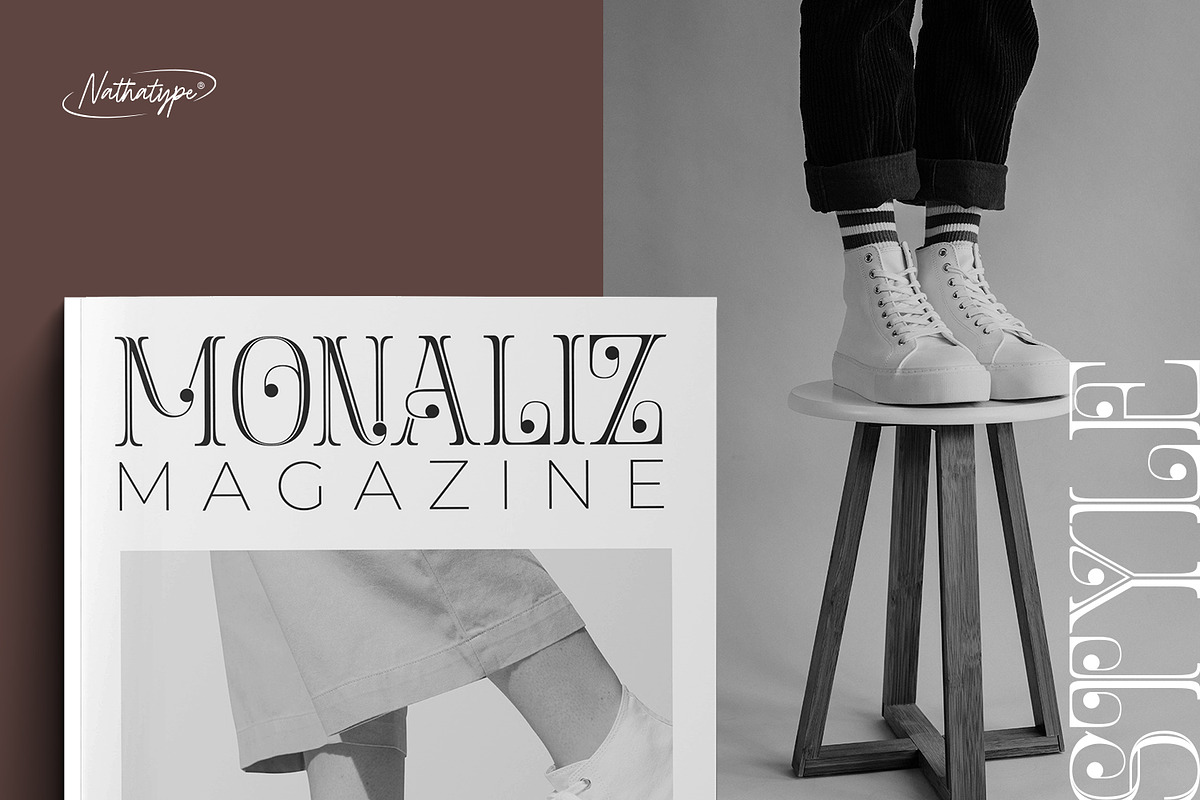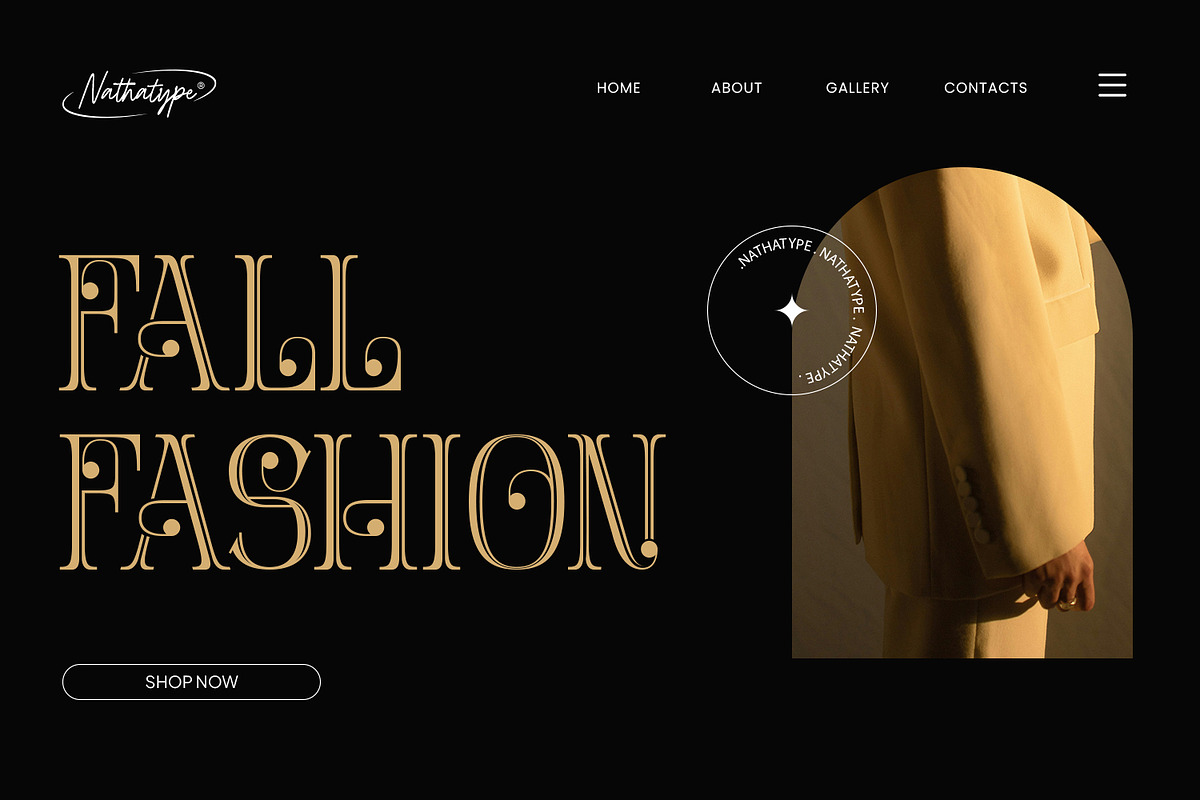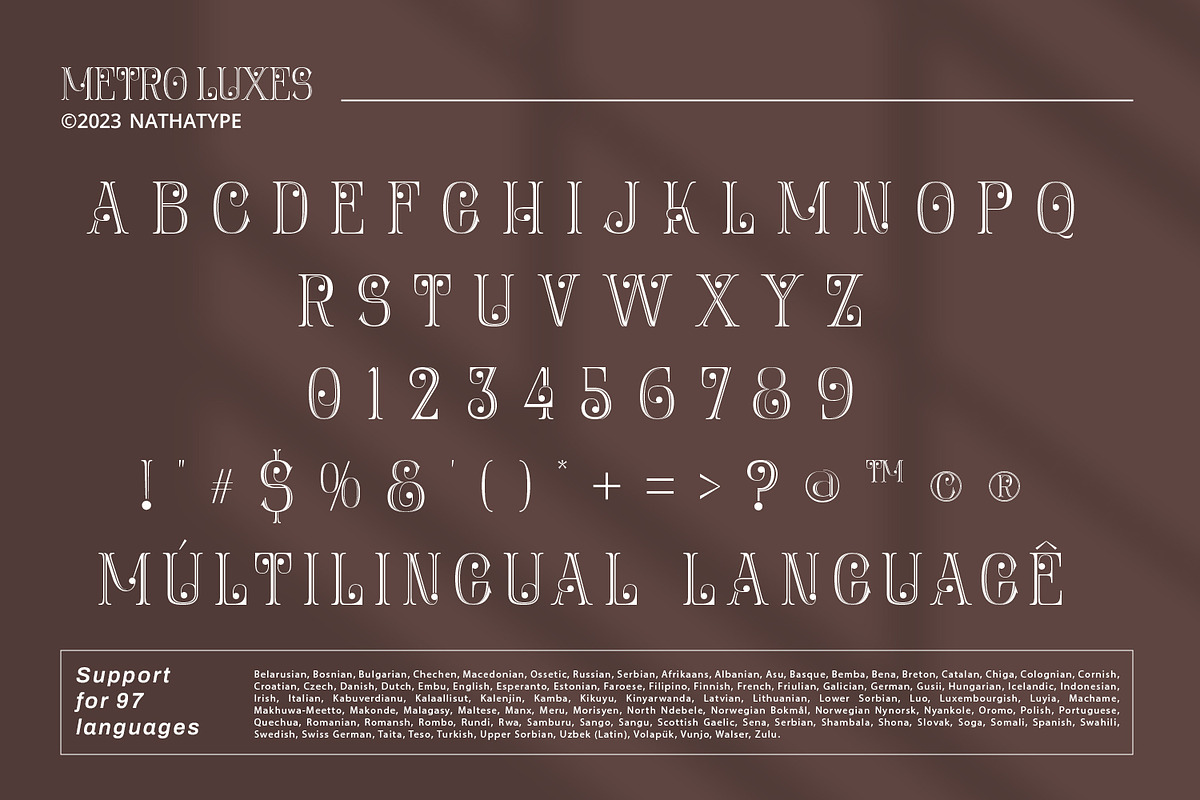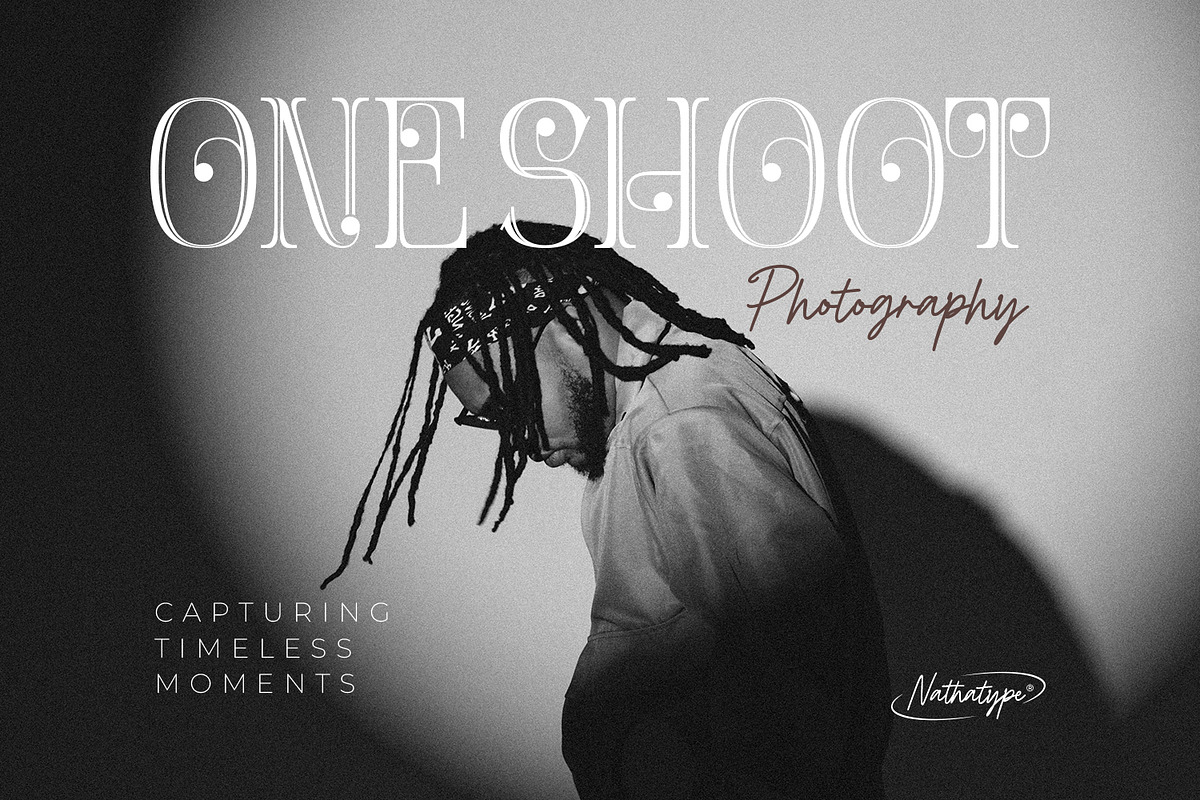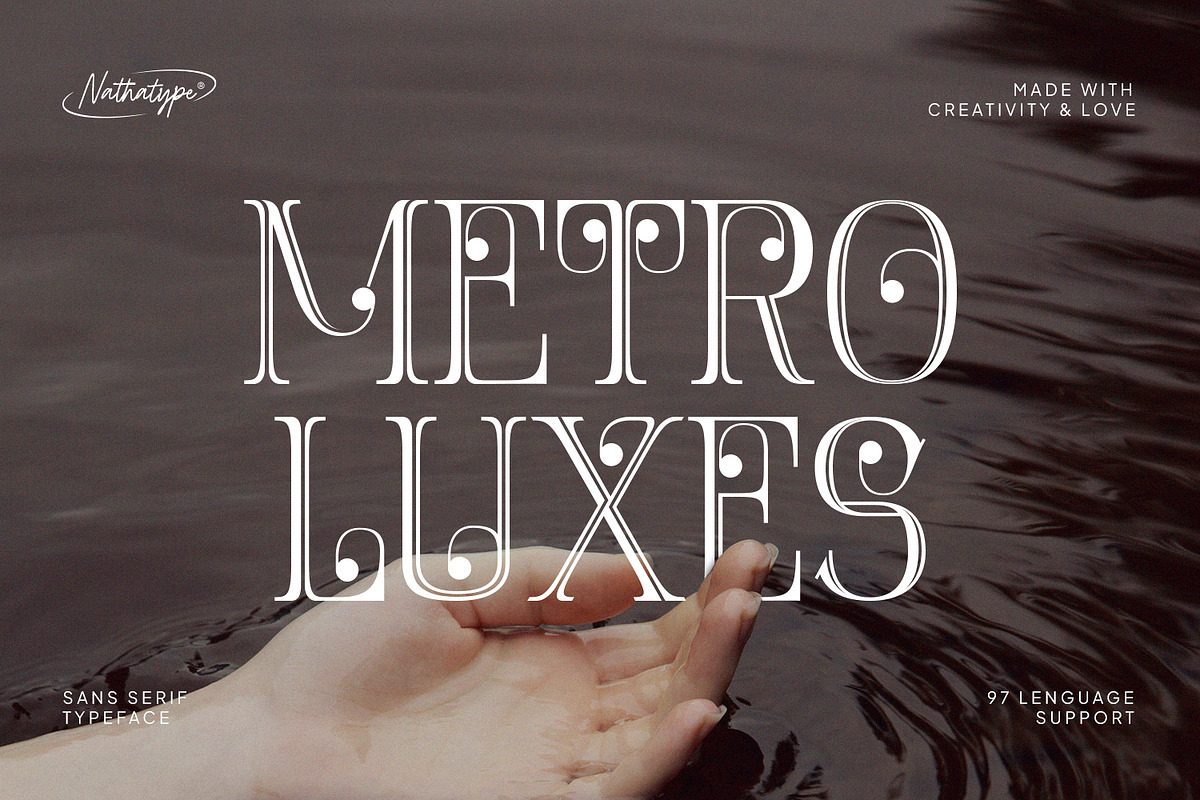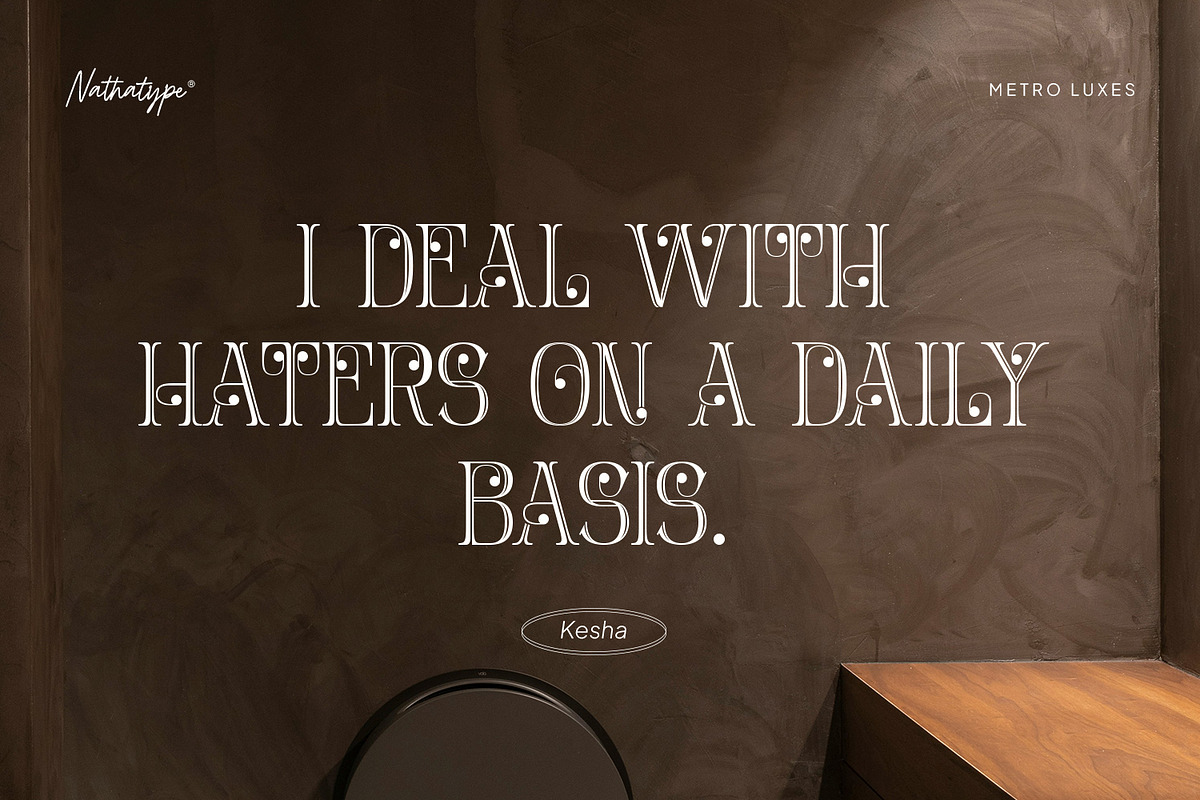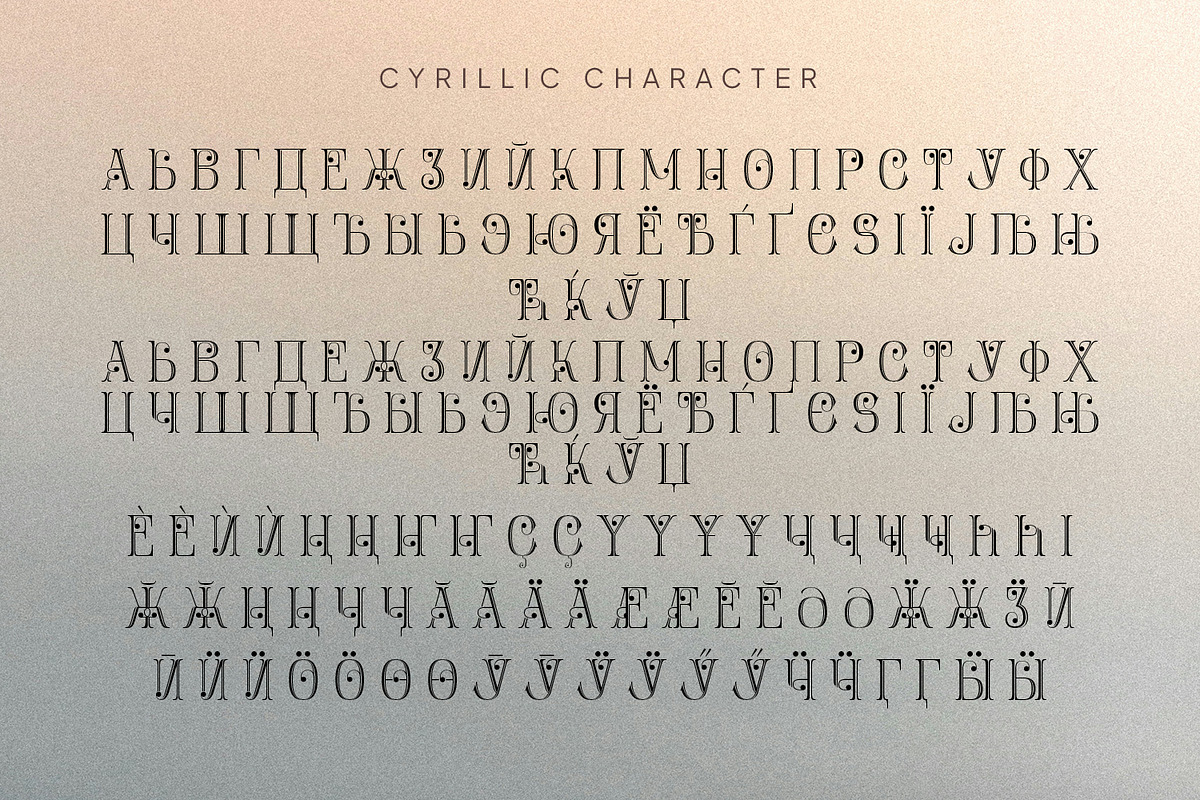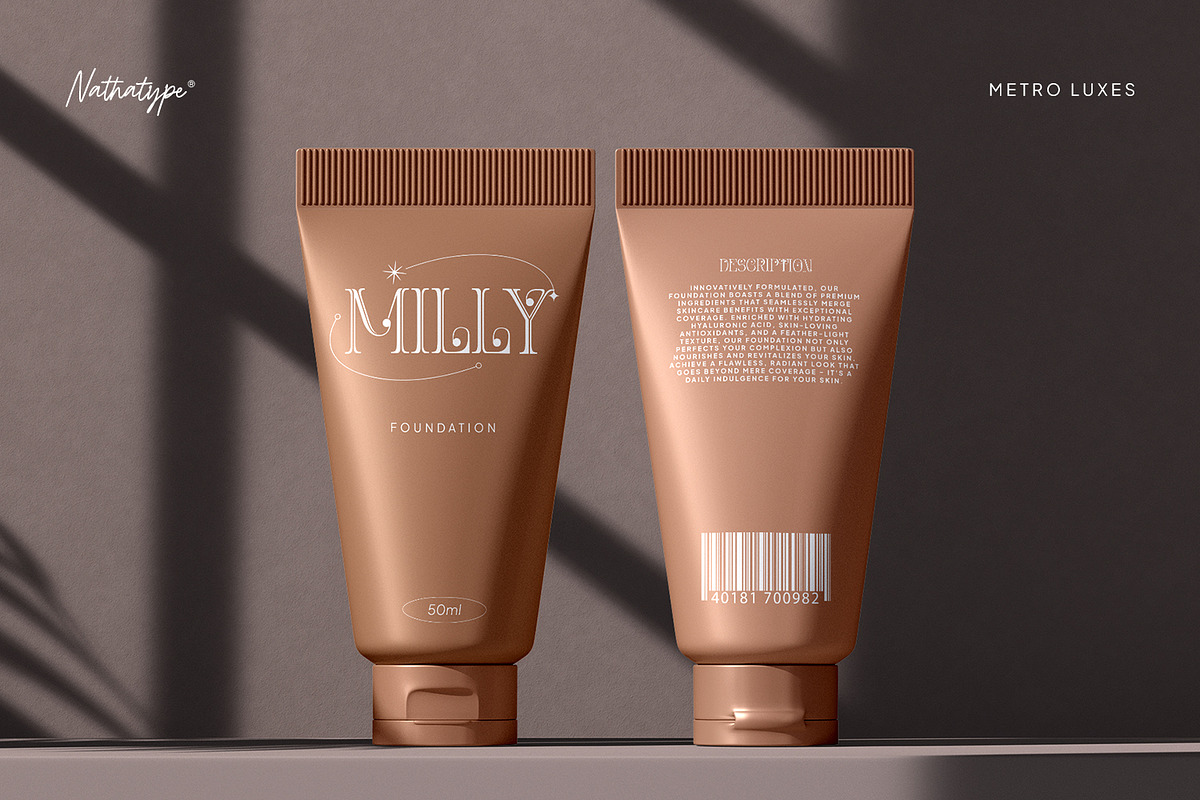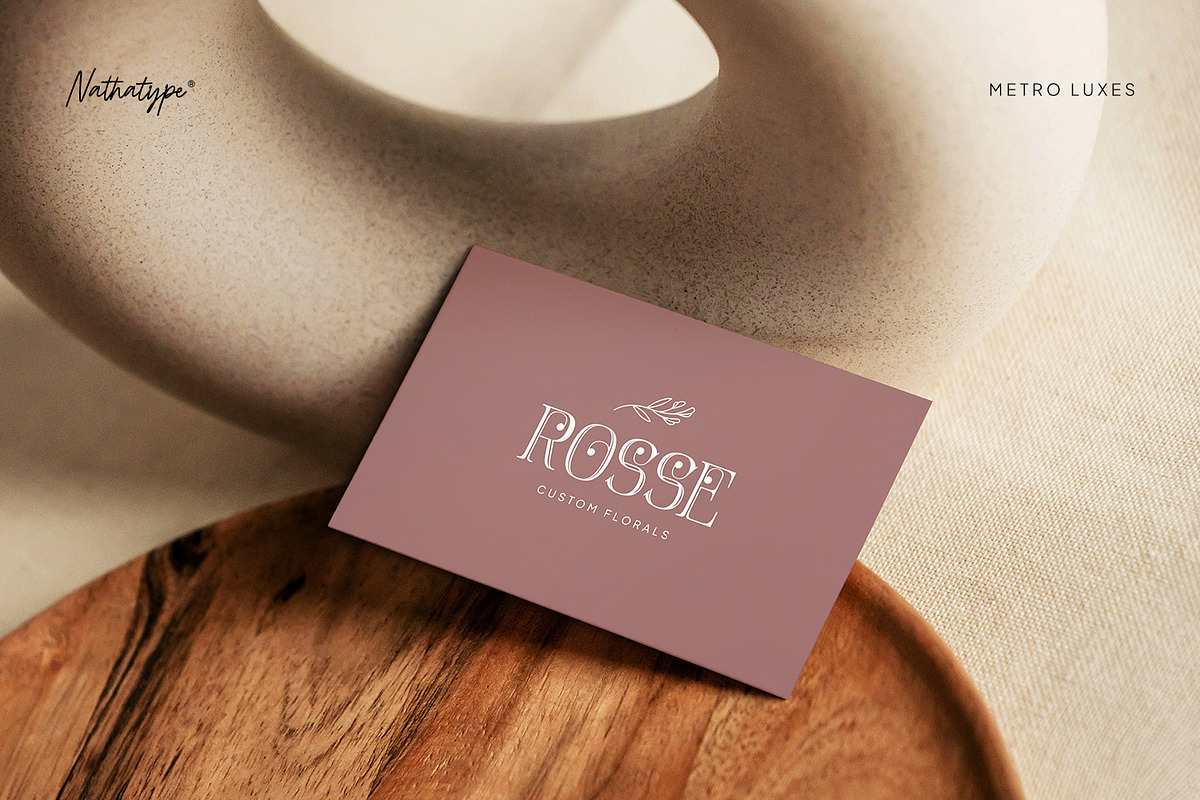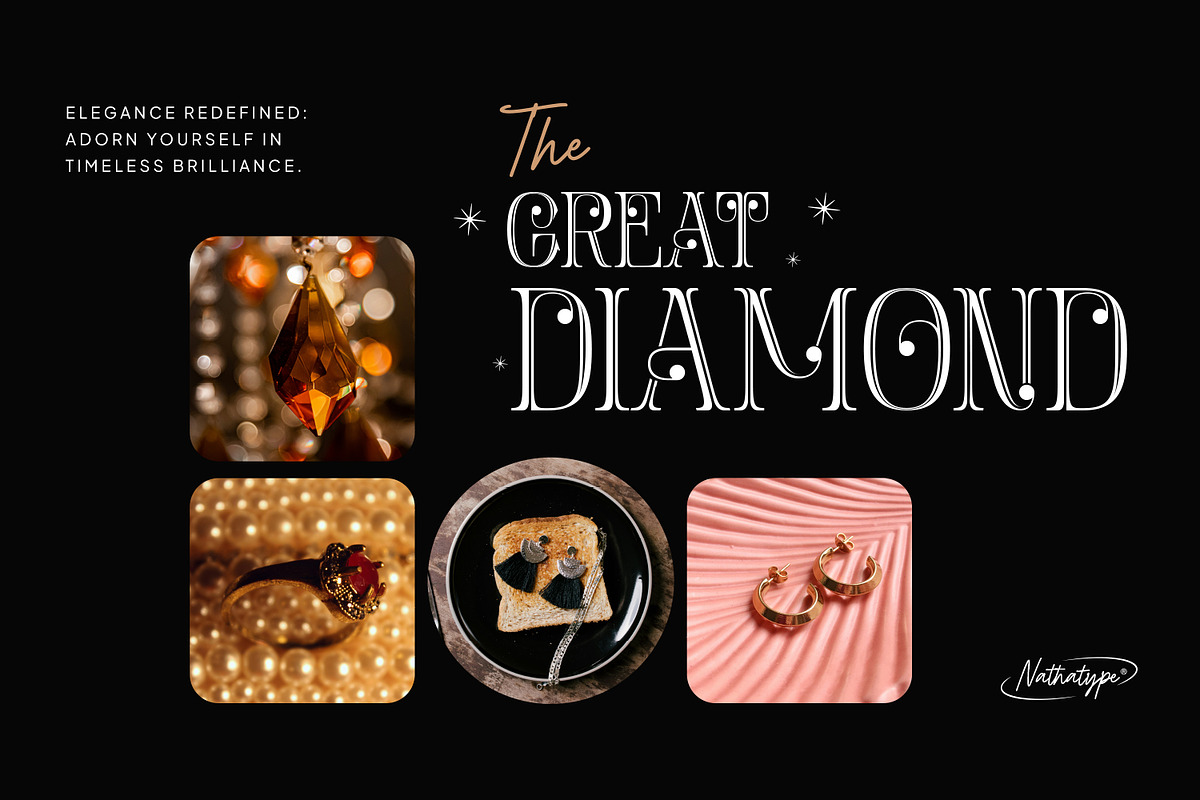
Metro Luxes
Metro Luxes is a refined sans serif font that embodies sophistication and modernity. Crafted exclusively in uppercase, this font exudes a sense of elegance. With its sleek lines and balanced proportions, Metro Luxes strikes the perfect balance between contemporary style and timeless elegance.
The letters are meticulously designed with a moderate thickness, ensuring clarity and readability. Adding a subtle touch of flair, Metro Luxes shows delicate ornamentation at the end of each letter. These decorative elements add a sense of refinement and sophistication, elevating the font's aesthetic appeal and making it stand out from traditional sans serif fonts. In addition, enjoy the features here.
Metro Luxes fits in headlines, logos, posters, flyers, branding materials, greeting cards, print media, editorial layouts, and many more designs. Find out more ways to use this font by taking a look at the font preview.